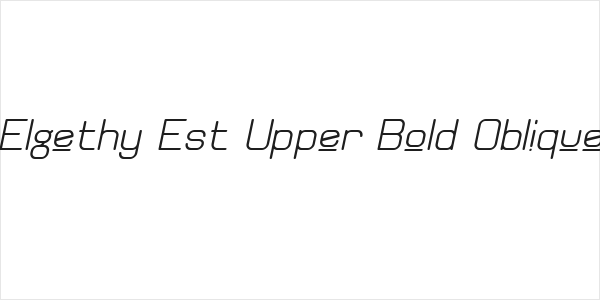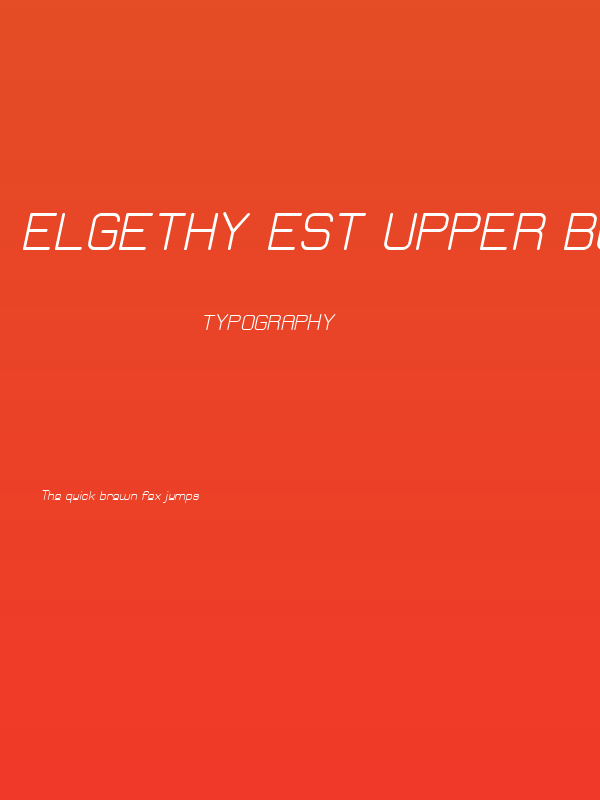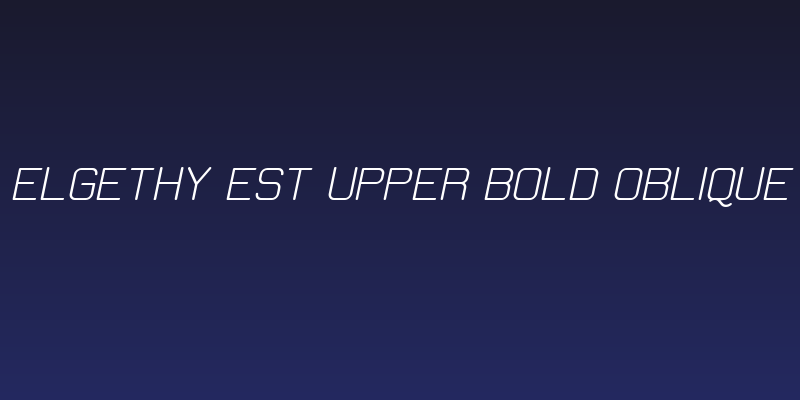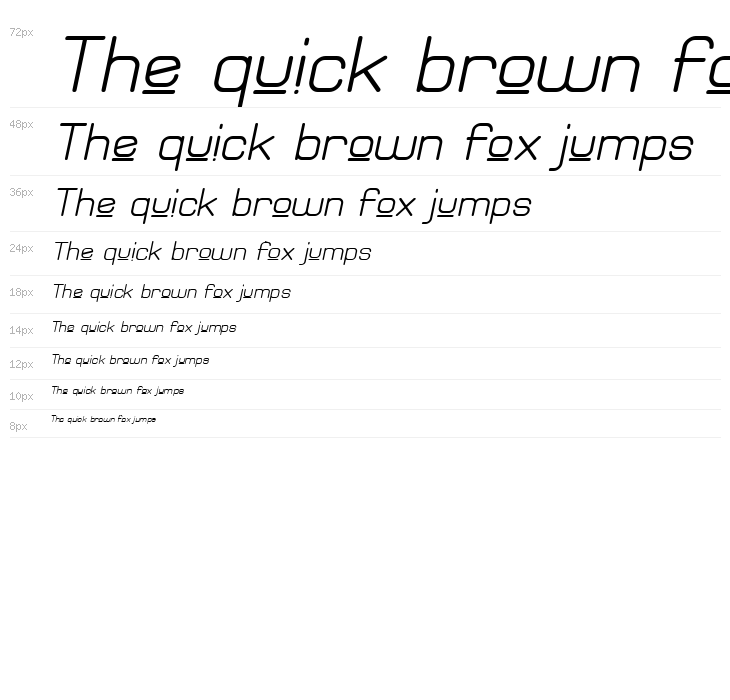
Elgethy Est Upper Bold Oblique Font
Elgethy Est Upper Bold Oblique Description
This font features a sleek, modern design with a distinct oblique style, giving it a dynamic and forward-leaning appearance. The characters are bold, with a consistent stroke width that maintains a clean and uniform look throughout. The uppercase and lowercase letters are well-proportioned, with a slightly condensed width that enhances readability while maintaining a stylish aesthetic. The numerals and special characters are designed to complement the alphabet, ensuring a cohesive look across all text. Its geometric shapes and smooth curves make it suitable for contemporary design projects.